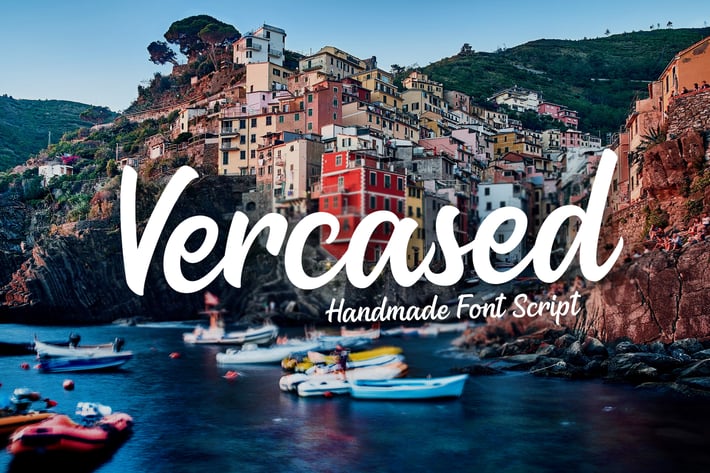
Versaced - Handmade Font
We Provide You one of the best Hand Written Script. Best match for logos, header, Titles, Prints & other Creative process possibilities.
Create a Extraordinary Typography / lettering results by using Versaced - Handmade Fonts